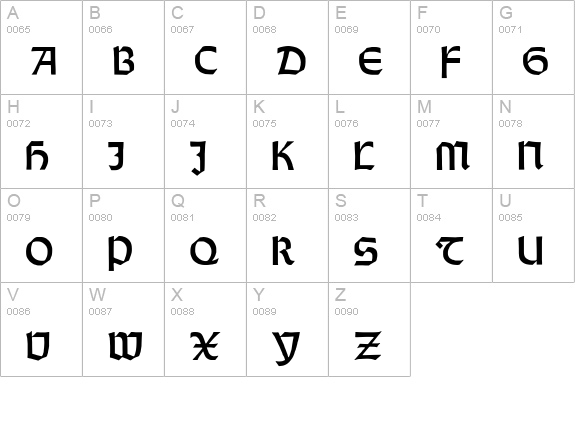
Orotund Heavy is a heavy, high-impact variant in the Orotund typeface family \xE2\x80\x94 well suited to high-impact headlines, posters, and display advertising.
Orotund Heavy font is a bold and commanding typeface that exudes strength and authority. Its thick, rounded letterforms give off a sense of power and confidence, making it perfect for headlines, titles, and other prominent design elements. The heavy weight of the font ensures that your message will be noticed and remembered. Best of all, Orotund Heavy font is available for free download at FontsMarket.com. This means you can easily add this impactful typeface to your design projects without any cost. Whether you're creating posters, logos, or branding materials, Orotund Heavy font is a versatile and eye-catching choice that will make a statement. Download it today and start making your designs stand out!